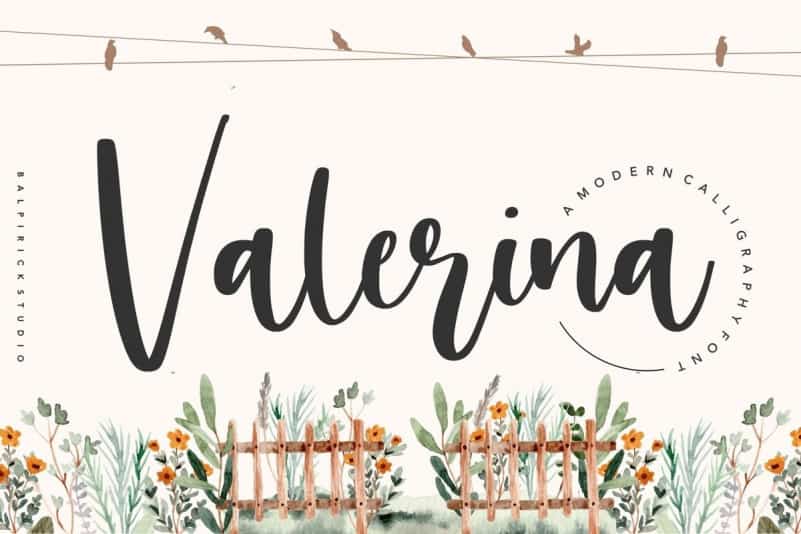
Valerina Calligraphy Font
Valerina Font is a handwritten script font with modern calligraphy style that make your latest project awesome. Valerina font which is very elegant and modern for you to use and your design interests be it for logos, branding names, posters, podcasts and so on. This is perfect for you all.